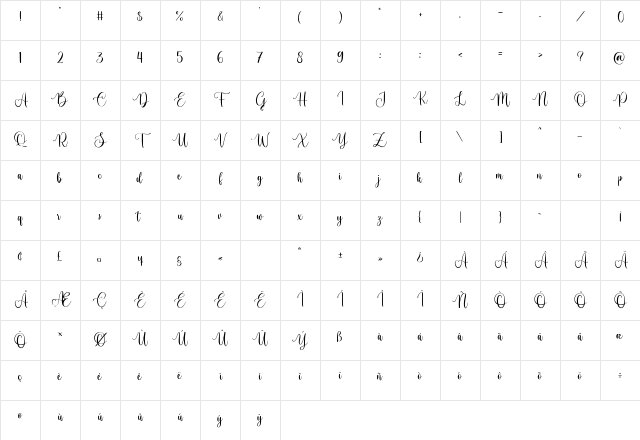
Smooth Loving Regular
Designer: Sigit Dwipa Raharjo
Complete Smooth Loving Regular glyph index. Displaying only characters natively supported by Smooth Loving Regular font.
Design Context for Smooth Loving
Smooth Loving is a composed and adaptable typeface that performs quietly and consistently across a wide range of design contexts.